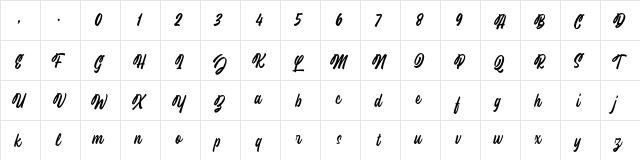
Windgard Regular
Design Context for Windgard Typeface
Windgard is a composed and adaptable typeface that performs quietly and consistently across a wide range of design contexts.